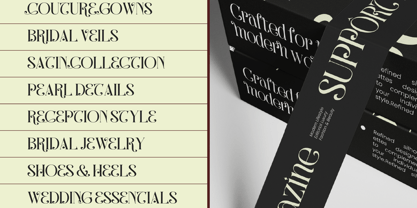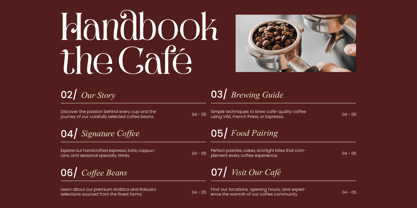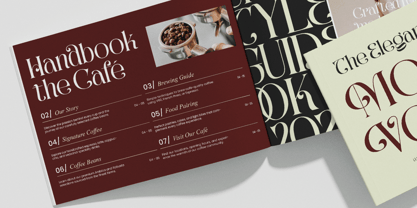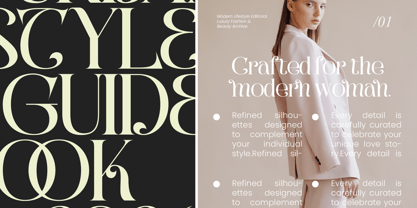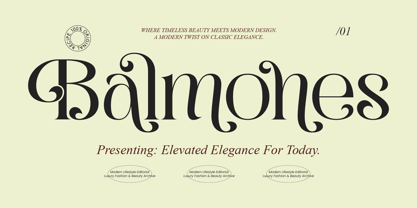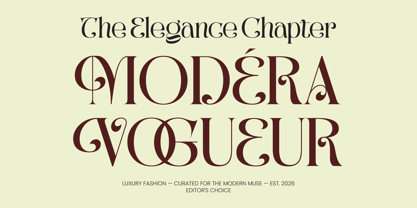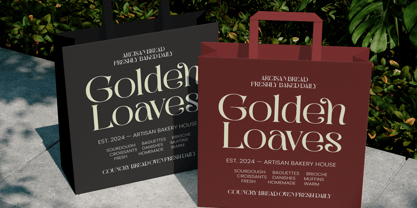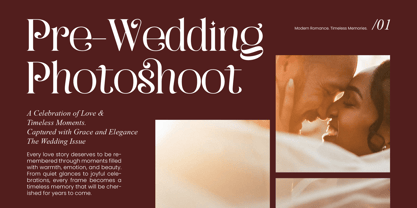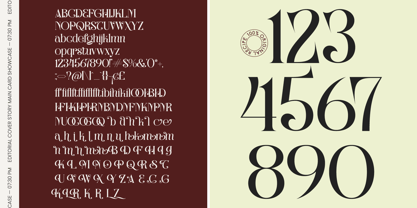
Balmones
por Timelesstype Studio
La familia tipográfica Balmones fue diseñada por Heru Utama Putra y publicada por Timelesstype Studio. Balmones contiene 2 estilos y opciones de paquete familiar. Más información sobre esta familia
Elevate your visual identity with the unmatched sophistication of Balmones - Modern Elegant Serif, a typeface designed to redefine luxury. This sophisticated serif typeface masterfully blends traditional calligraphic elements with a modern aesthetic, ensuring your brand stands out in a crowded marketplace. By integrating fluid curves and sharp contrasts, it captures the essence of contemporary high-end design effortlessly.
Diseñadores: Heru Utama Putra
Fundición: Timelesstype Studio